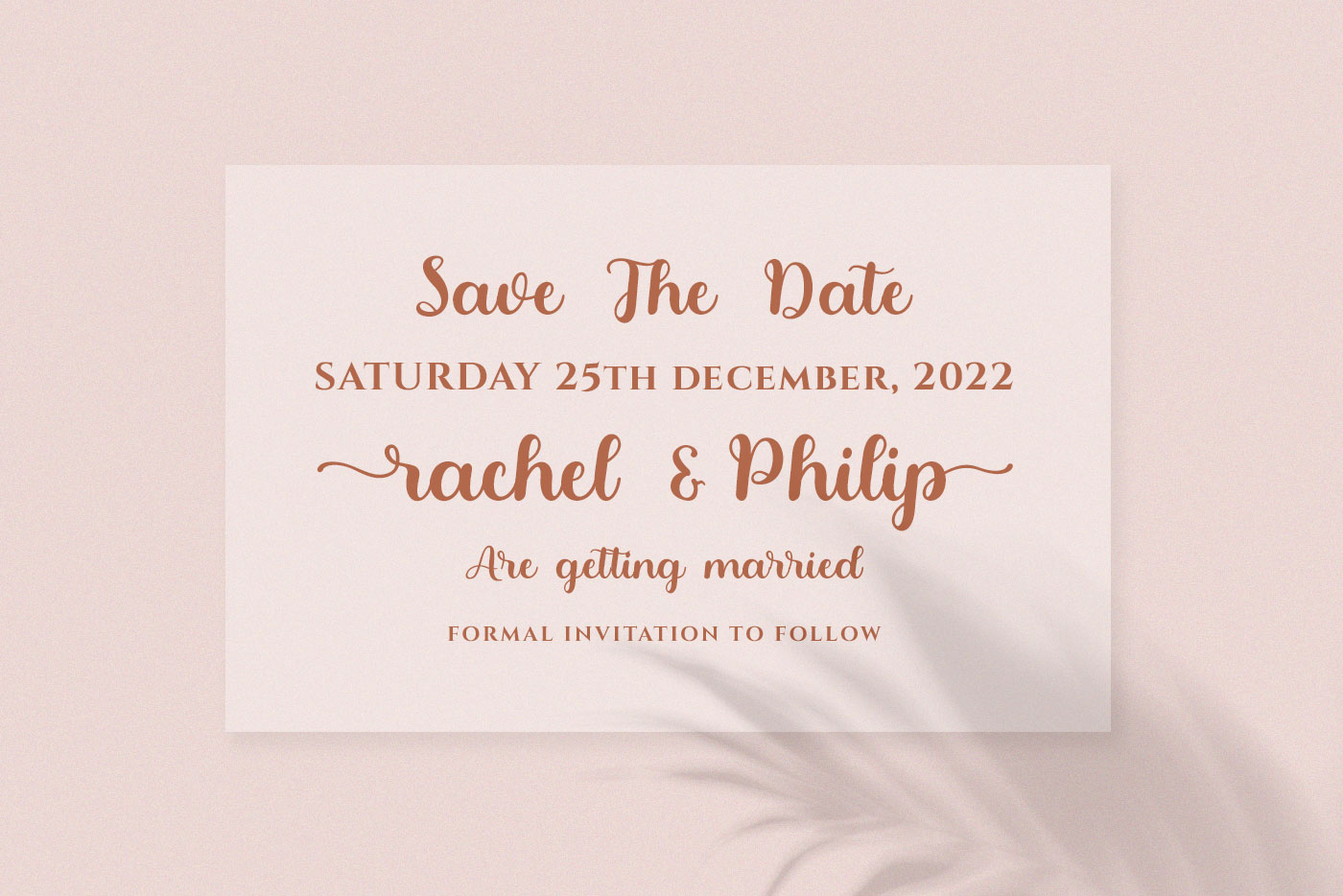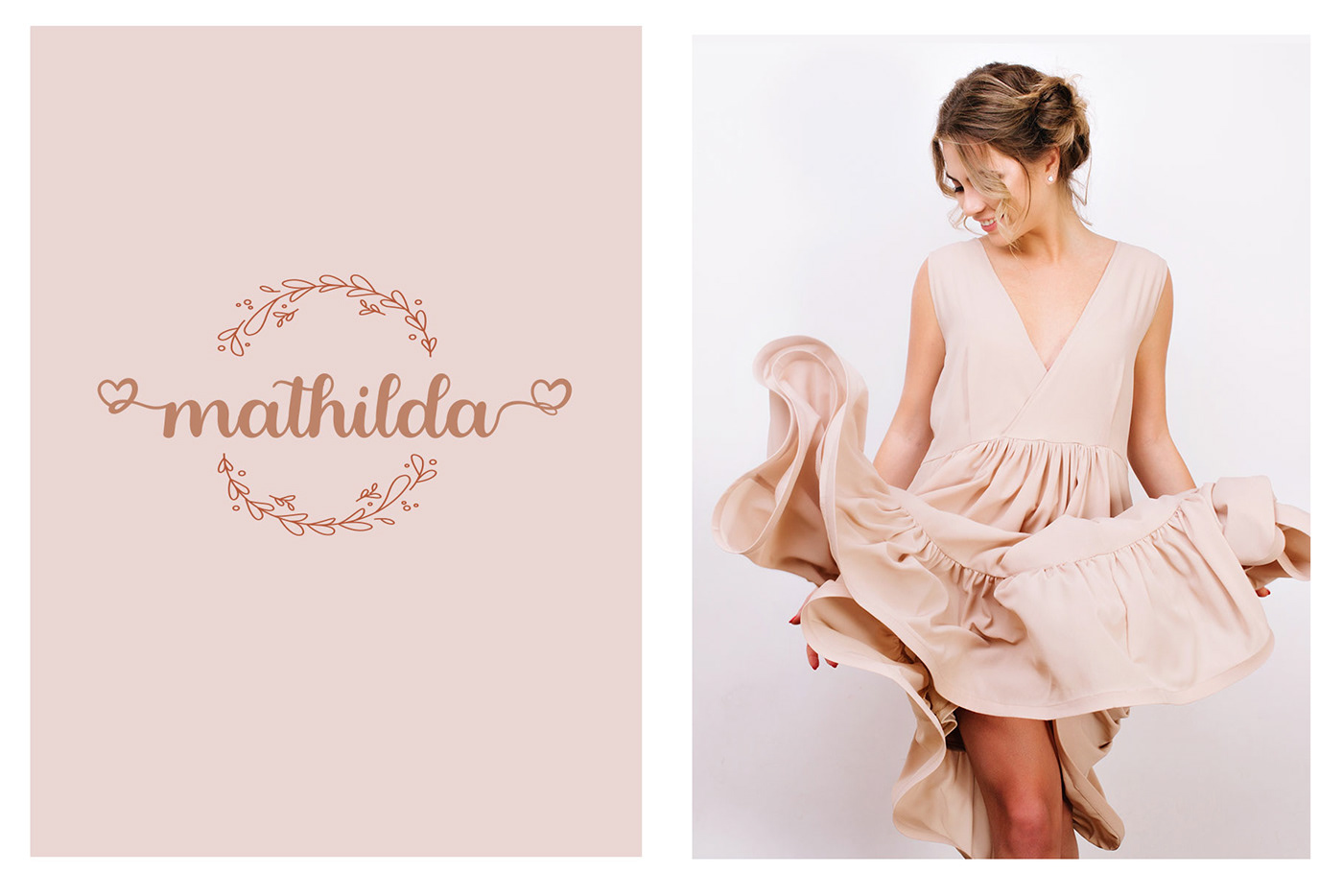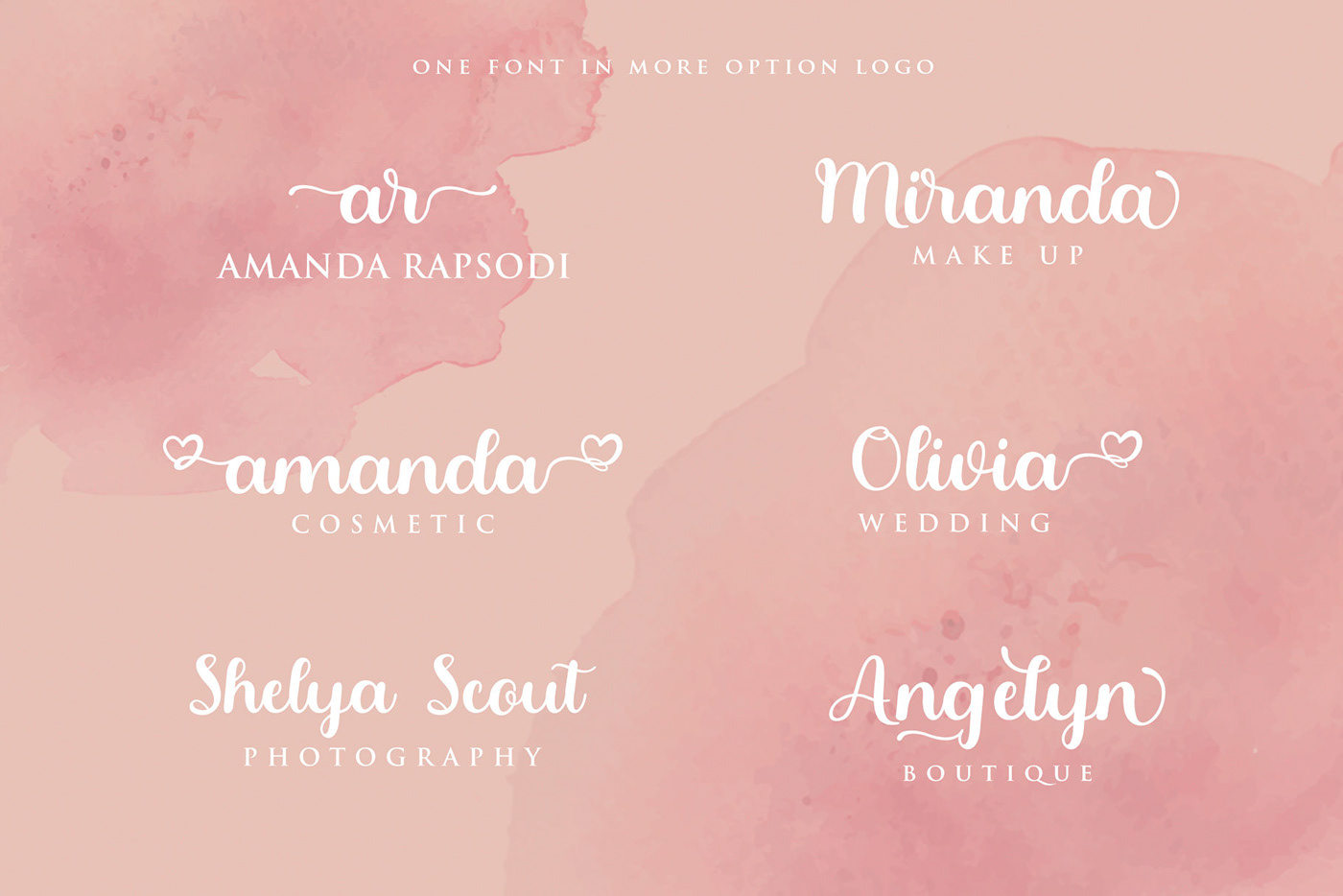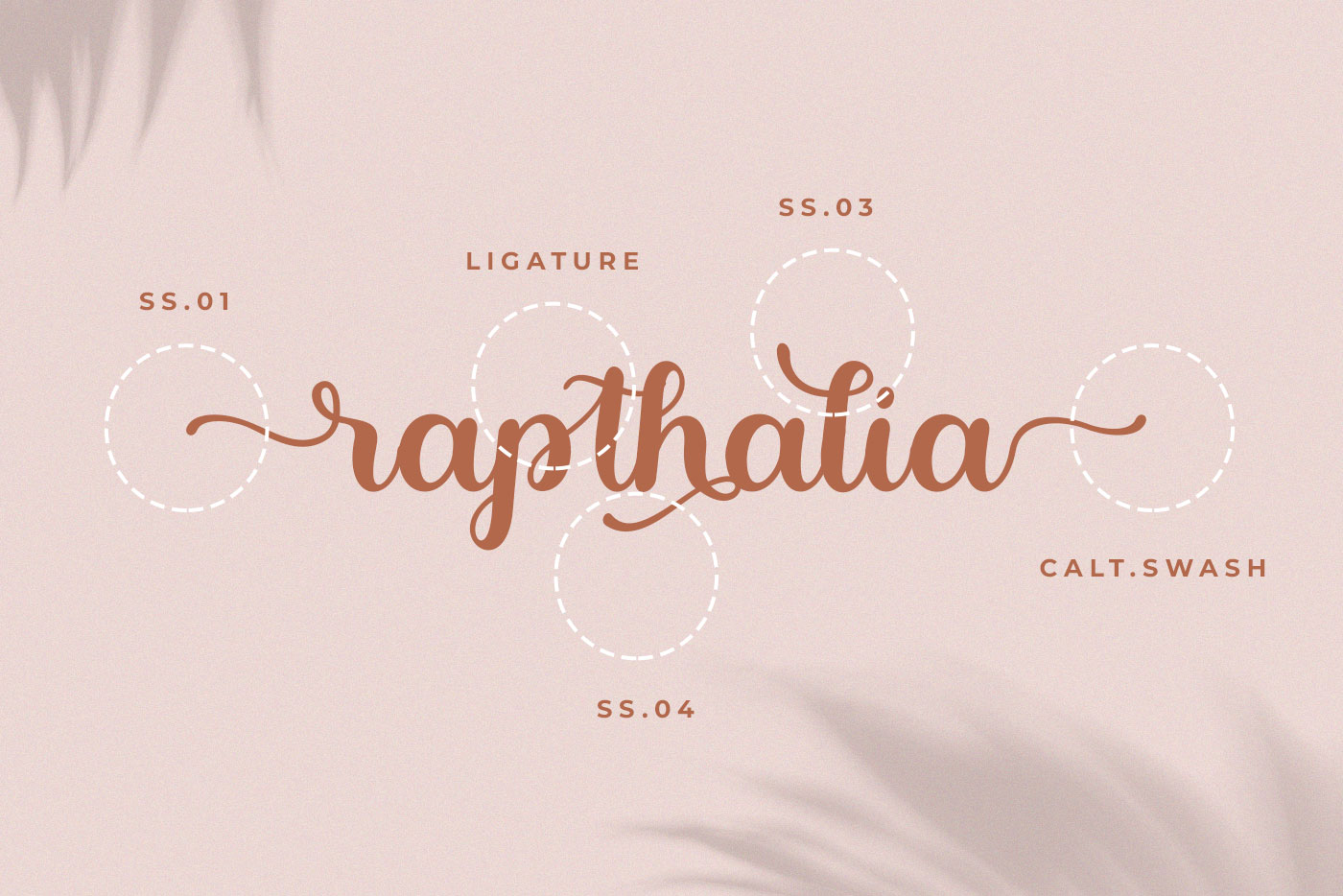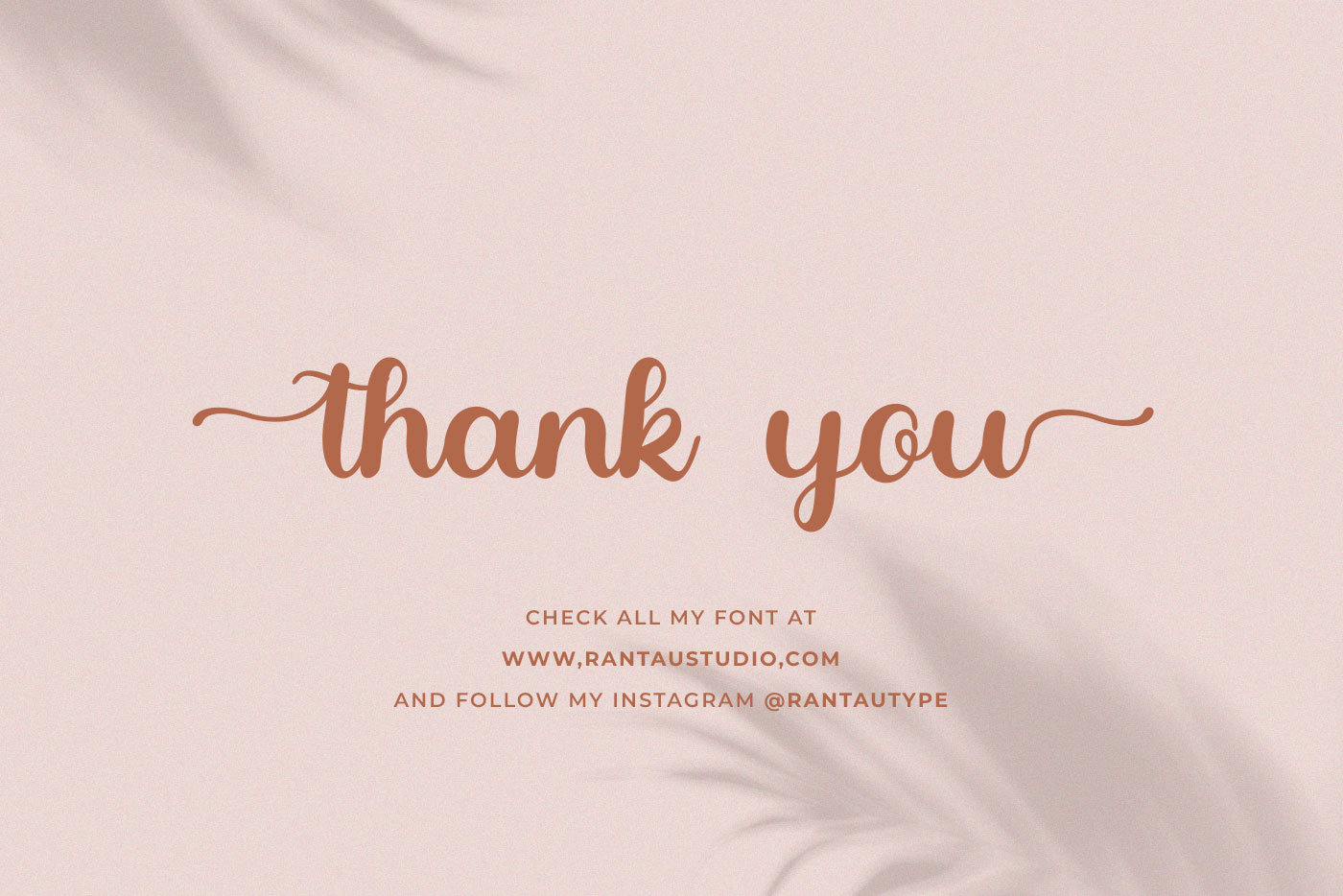
Nietta Modern Calligraphy font
Nietta is lovely fontĀ  which can be interpreted professional. I keep this font looks modern, feminine, girly, catchy and easy to use also i make ligature in different font you can choice to use it or not. Niettae is the great choice for watermark on wedding organizer, signature or signature logo design, quotes, album cover, business card and many other design project. Nietta is here to make your work or your business to high level!!!
• alternate and ligature
• Begining swash and end swash